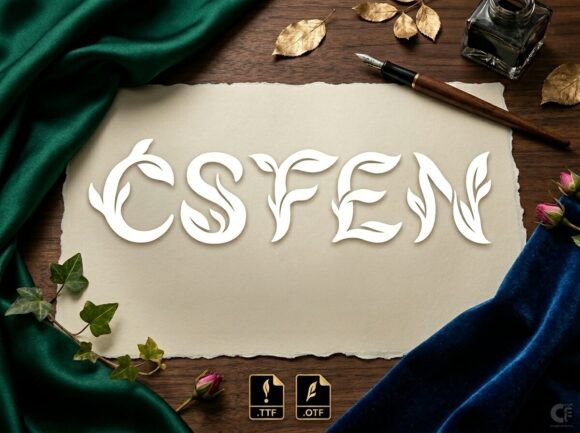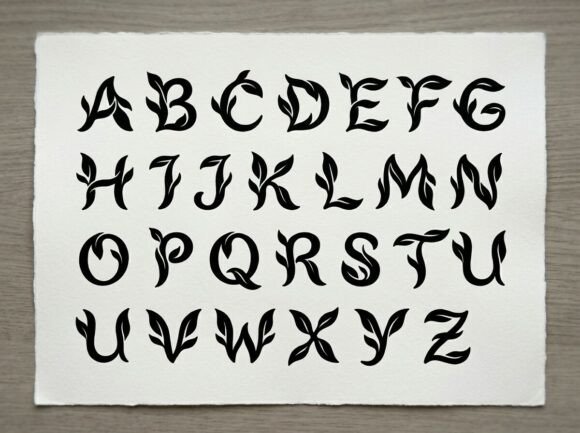
Esten Font: A Stunning Decorative Display Font for Creative Minds
Are you tired of using the same old fonts for your designs? Look no further than Esten Font, a unique and artistic display font that’s sure to turn heads. With its strong visual personality and decorative elements, this font is perfect for creators who want to add a touch of elegance and sophistication to their work.
Esten Font is a stunning decorative display font designed to be the center of attention. Its unique artistic elements and strong visual personality make it perfect for bold headlines, artistic logos, and creative packaging. Whether you’re a designer, craftsperson, or simply someone who loves to create, this font is sure to inspire you to new heights.
⚠️ IMPORTANT NOTE BEFORE PURCHASE: Esten Font is an ALL-CAPS (Uppercase Only) display typeface. It does not include lowercase letters. It is specifically designed for high-impact headlines, logos, and decorative initials where every letter is a work of art.
This means that Esten Font is perfect for designs where you want to make a statement, but may not be the best choice for body text or other applications where lowercase letters are necessary.
Esten Font is a versatile font that’s perfect for a wide range of design applications, including:
- Bold headlines and titles
- Artistic logos and branding
- Creative packaging and labeling
- Decorative initials and quotes
Whether you’re a professional designer or a crafty DIY enthusiast, Esten Font is sure to inspire your creativity and help you create stunning designs that stand out from the crowd.
Why Choose Esten Font?
So why choose Esten Font over other decorative display fonts? Here are just a few reasons:
- Unique and artistic design: Esten Font features a one-of-a-kind design that’s sure to turn heads.
- High-impact visual personality: This font is designed to make a statement, with bold and eye-catching letterforms.
- Professional and polished finish: Despite its decorative nature, Esten Font maintains a professional and polished finish that’s perfect for high-end designs.
If you’re looking for a stunning decorative display font that will take your designs to the next level, look no further than Esten Font. With its unique artistic elements, strong visual personality, and professional finish, this font is perfect for designers, crafters, and creatives of all kinds. So why wait? Download Esten Font today and start creating stunning designs that demand attention!